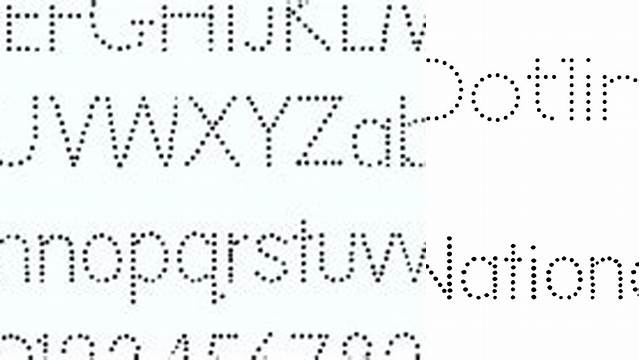
Download Dotted Fonts For Free: Your Ultimate Guide
Hey guys! If you're on the hunt for a cool, unique font to spice up your designs, then you've come to the right place. Today, we're diving headfirst into the world of dotted fonts and how you can get your hands on them with a free download. Whether you're a seasoned designer, a newbie, or just someone who loves to play around with typography, dotted fonts offer a fantastic way to add a touch of personality and visual flair to your projects. They're super versatile and can be used in a bunch of different ways – from creating eye-catching headlines and logos to adding a playful touch to your website or social media posts. This guide will break down everything you need to know, including where to find these amazing fonts, what to look for, and how to install them, all while keeping your wallet happy with free options!
Finding the Perfect Dotted Font: Where to Start Your Free Download Quest
Alright, so you're ready to snag some awesome dotted fonts, but where do you even begin? Don't worry, I've got you covered. There are tons of websites out there that offer a wide variety of fonts, and many of them have a great selection of dotted fonts that are available for free download. One of the first places you should check out is Google Fonts. While they might not have a huge selection of dotted fonts specifically, they do have a massive library of free fonts, and you might be able to find a style that you can tweak or customize to get that dotted effect. Another great resource is Font Squirrel. They're known for their high-quality, hand-picked fonts, and they often have a dedicated section for unique and interesting font styles, including dotted ones. Check out websites like DaFont and 1001 Fonts, they usually have a huge database of fonts, and you can easily filter by style and keyword. Be sure to pay attention to the licensing information before you download, some fonts are free for personal use only, while others are free for commercial use as well. Remember to always read the fine print to make sure you're using the fonts legally!
Narrowing Down Your Choices: Exploring Different Styles and Variations
Once you've found a few websites to browse, it's time to start exploring the different styles and variations of dotted fonts available for free download. This is where the fun really begins! You'll quickly discover that dotted fonts come in a wide range of shapes, sizes, and designs, so you can find the perfect font to match your project's vibe. Some fonts use simple, uniform dots, while others feature more complex designs, like dots of different sizes or shapes. You might find fonts where the dots are closely spaced, creating a solid effect, or fonts where the dots are spread out, giving a more airy and delicate feel. Consider the context where you'll be using the font. For example, a playful, rounded dotted font might be great for a kids' website or a greeting card, whereas a more structured, geometric dotted font could be perfect for a tech company's logo or branding materials. Also, think about the readability of the font. Some dotted fonts can be difficult to read, especially at smaller sizes or on busy backgrounds. Make sure to test out the font in different sizes and on different backgrounds before you commit to using it. Choose a font that is both visually appealing and easy to read, as the primary goal of typography is always to communicate clearly and effectively.
Look for fonts that offer different weights, such as light, regular, bold, and extra bold. This allows you to create visual hierarchy and emphasize certain words or phrases. Some dotted fonts come with a full character set, including letters, numbers, and special characters. However, some free fonts might have a limited character set. Decide whether you need a full character set. If you need to use a wide range of characters, make sure the font you choose offers all of them. Some dotted fonts are designed to be used in conjunction with other fonts. You could try pairing a dotted font with a sans-serif or serif font to create a visually interesting combination. Experiment with different font pairings until you find something that works well. By exploring the diverse range of dotted font styles, you can identify which fonts best fit your design goals and add that extra something special.